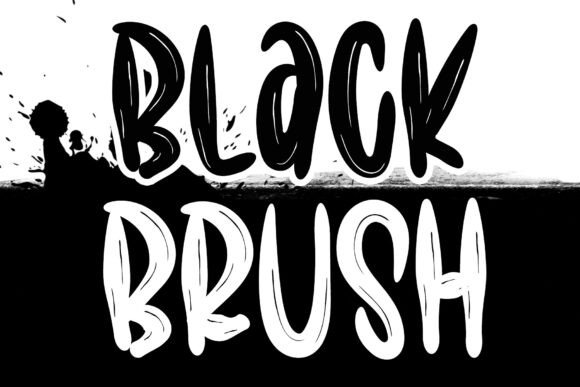
Black Brush Font: A Bold and Stylish Addition to Your Creative Designs
The world of typography is vast and diverse, offering a multitude of font styles to suit various design needs. Among these, the Black Brush Font stands out for its unique, hand-drawn aesthetic that adds a touch of creativity and personality to any design project. In this article, we’ll delve into the characteristics, uses, and benefits of the Black Brush Font, exploring how it can elevate your designs and make them more engaging.
What is Black Brush Font?
Black Brush Font is a bold and stylish brush font that mimics the look of hand-painted letters. Its natural, organic feel is reminiscent of traditional brush calligraphy, but with a modern twist that makes it suitable for a wide range of applications. The font features thick, energetic strokes that give text a strong, artistic vibe, making it perfect for designs that require a creative and expressive touch.
Key Features of Black Brush Font
- Bold and Stylish: The font’s bold strokes and stylish appearance make it stand out in any design.
- Natural, Hand-Drawn Feel: The organic look and feel of the font give it a unique, personalized touch.
- Thick and Energetic Strokes: The font’s thick strokes convey energy and creativity, adding a dynamic element to your designs.
- Versatile: Suitable for a variety of design projects, including posters, logos, invitations, and more.
Uses of Black Brush Font
The versatility of Black Brush Font makes it an excellent choice for various design projects. Here are some of the most popular uses of this font:
Design Projects That Benefit from Black Brush Font
- Posters and Flyers: The font’s bold and eye-catching appearance makes it perfect for posters and flyers that need to grab attention.
- Logos and Branding: The unique, hand-drawn feel of the font can help create a memorable brand identity.
- Invitations and Event Materials: Add a touch of elegance and creativity to your invitations and event materials with this stylish font.
- Social Media Graphics: The font’s bold and energetic strokes make it suitable for social media graphics, such as quotes, promotions, and announcements.
Benefits of Using Black Brush Font
Incorporating Black Brush Font into your designs offers several benefits, including:
Why Choose Black Brush Font?
- Unique and Creative: The font’s hand-drawn aesthetic adds a unique touch to your designs, setting them apart from more traditional typography.
- Easy to Read: Despite its bold and artistic appearance, the font remains easy to read, making it suitable for a wide range of applications.
- Customizable: The font can be easily customized to fit your design needs, allowing you to experiment with different colors, sizes, and styles.
- Time-Saving: Using a pre-designed font like Black Brush Font can save you time and effort in the design process, allowing you to focus on other creative aspects of your project.
Tips for Using Black Brush Font Effectively
To get the most out of Black Brush Font, consider the following tips:
Best Practices for Working with Black Brush Font
- Use it Sparingly: While the font is bold and eye-catching, using it sparingly can help avoid overwhelming the viewer.
- Pair it with Complementary Fonts: Experiment with pairing Black Brush Font with other fonts to create visual interest and hierarchy in your design.
- Experiment with Colors: Don’t be afraid to try out different colors and textures to add depth and dimension to your design.
- Consider the Context: Make sure the font aligns with the tone and style of your design project, and adjust accordingly.
Black Brush Font is a versatile and stylish addition to any design project. Its unique, hand-drawn aesthetic and bold, energetic strokes make it perfect for creative designs that require a personal touch. By understanding the characteristics, uses, and benefits of this font, you can effectively incorporate it into your designs and take your creativity to the next level.